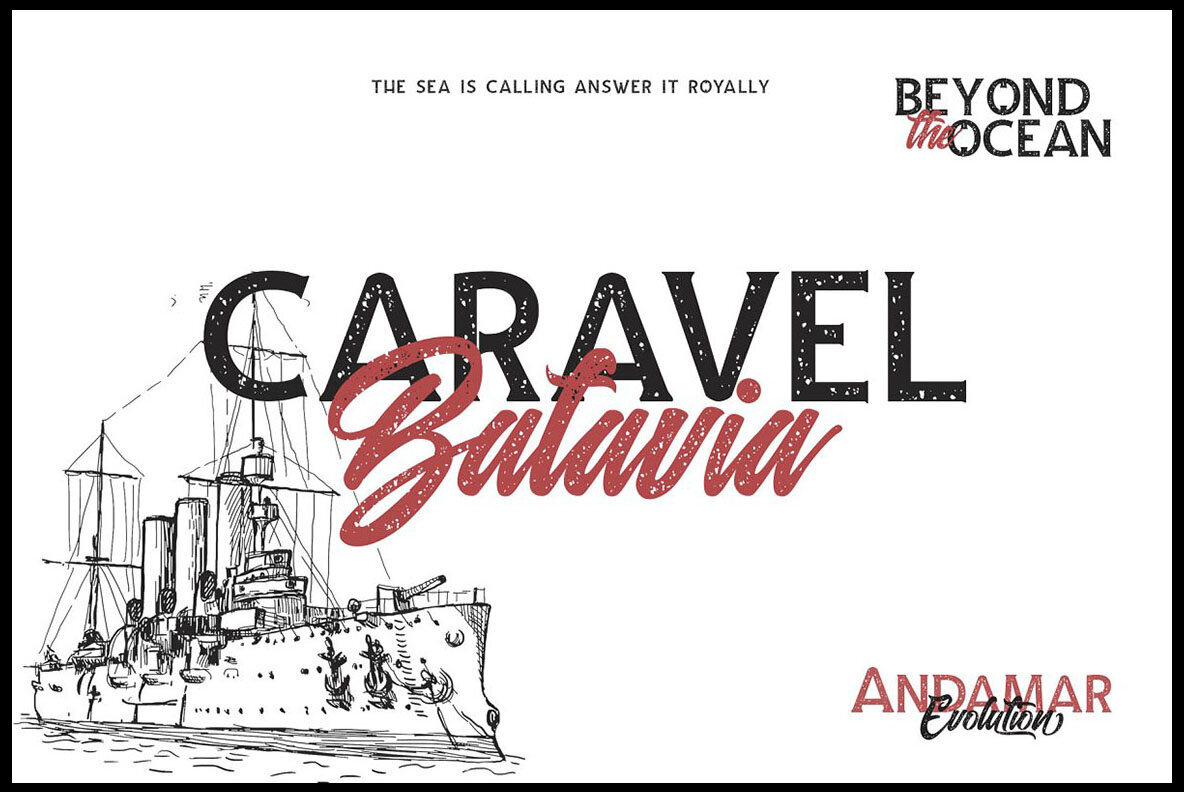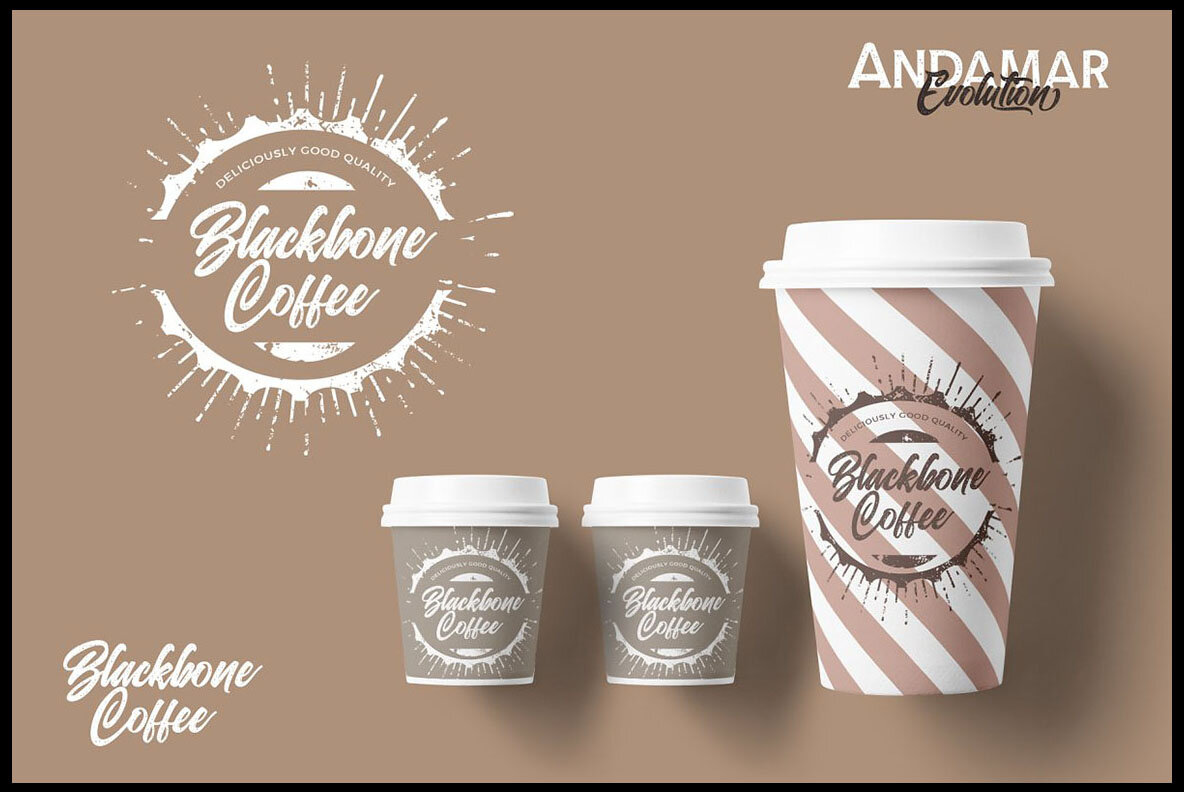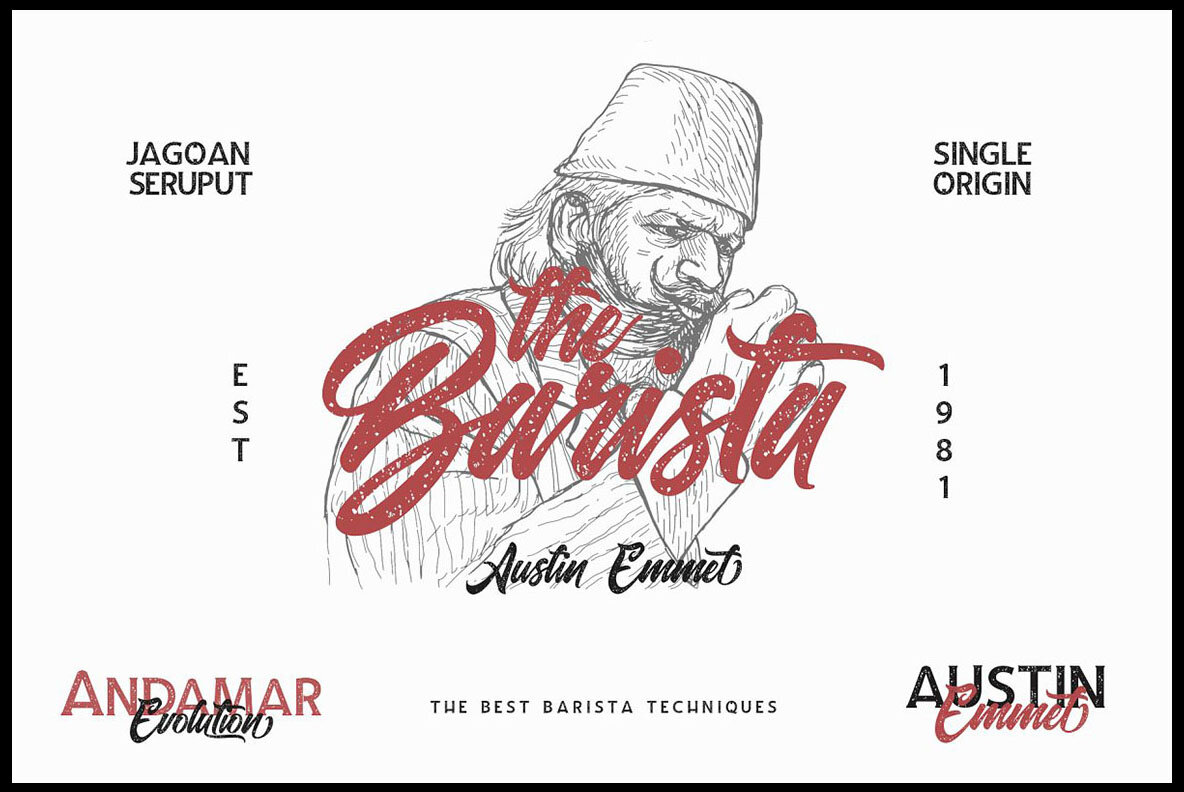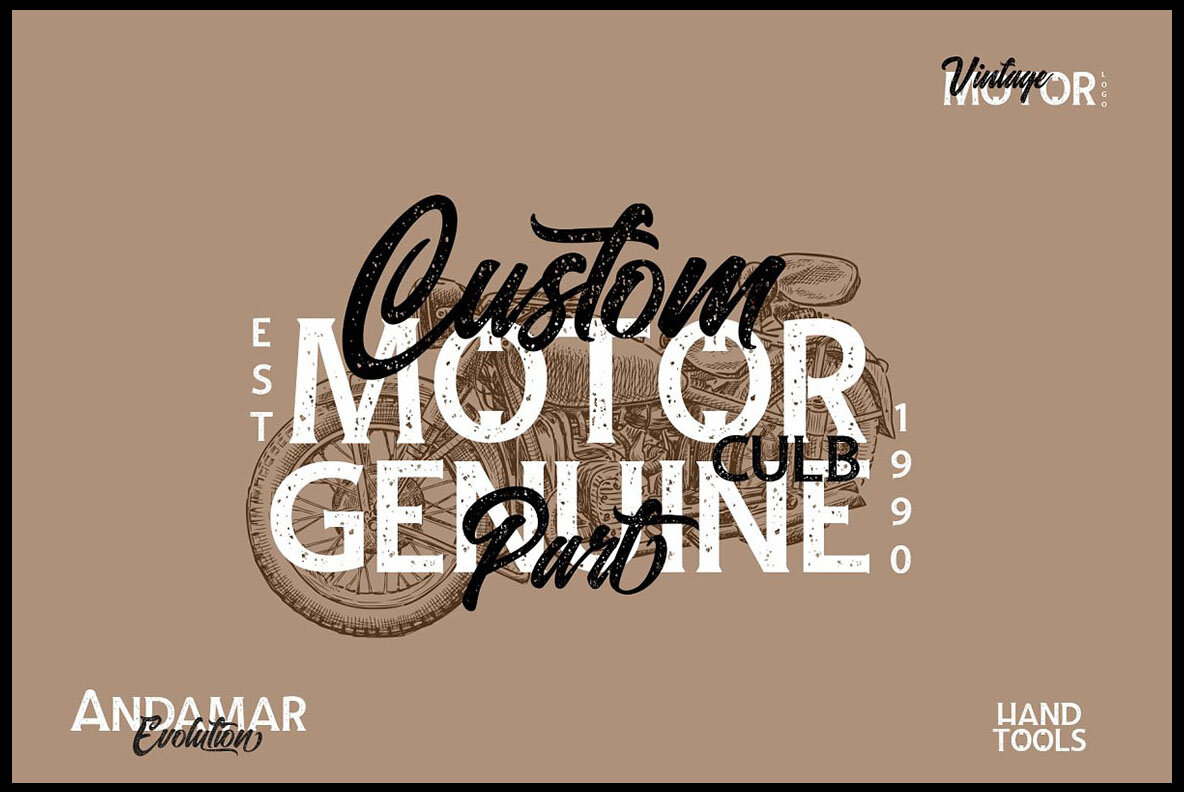
Andamar Font
Andamar is a creative font duo inspired by retro and vintage artworks. This combination of serif and script fonts is available in multiple versions, offering flexibility for diverse design needs. The serif font is ideal for vintage-style branding projects, while the script font features a casual or marker style with numerous stylistic alternates. This allows designers to craft realistic headers. Additionally, both fonts are available in a rough version and come with a swash font, making them perfect for branding, advertising, or creative headers.Andamar by Peter Olexa: Vintage Serif and Script Font Duo